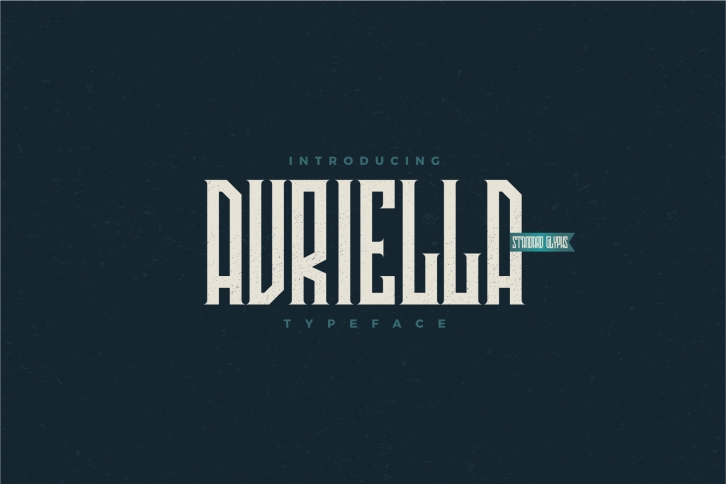
Avriella Display is a gorgeous font that was realeased on August 13, 2018. The font can be used in many style contexts and design environments. Perfect for invitations, magazines, websites, logos, and more! It was designed by 24design studios and the file size is 21.22 MB. Thanks for checking out this font!